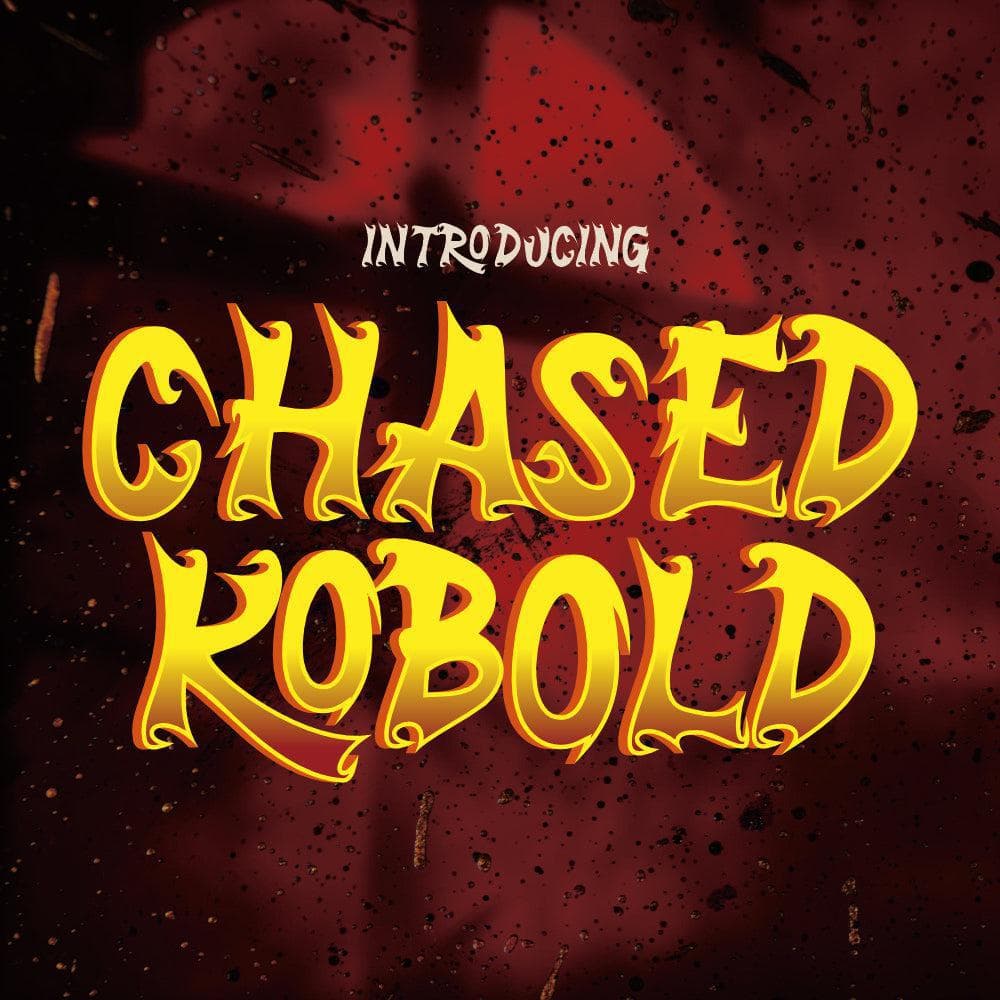
<p>Chased Kobold is a modern spooky decorative font that perfectly captures the eerie and playful essence of Halloween. With its sharp, jagged edges and irregular letterforms, this typeface evokes a sense of mystery and supernatural intrigue. The design blends contemporary typography with gothic and horror-inspired elements, making it ideal for Halloween-themed projects, horror movie posters, eerie invitations, and spooky branding. Chased Kobold's bold and expressive style ensures high readability while maintaining a chilling, haunted aesthetic, making it a perfect choice for designers seeking to add a ghostly charm to their creative works.</p>